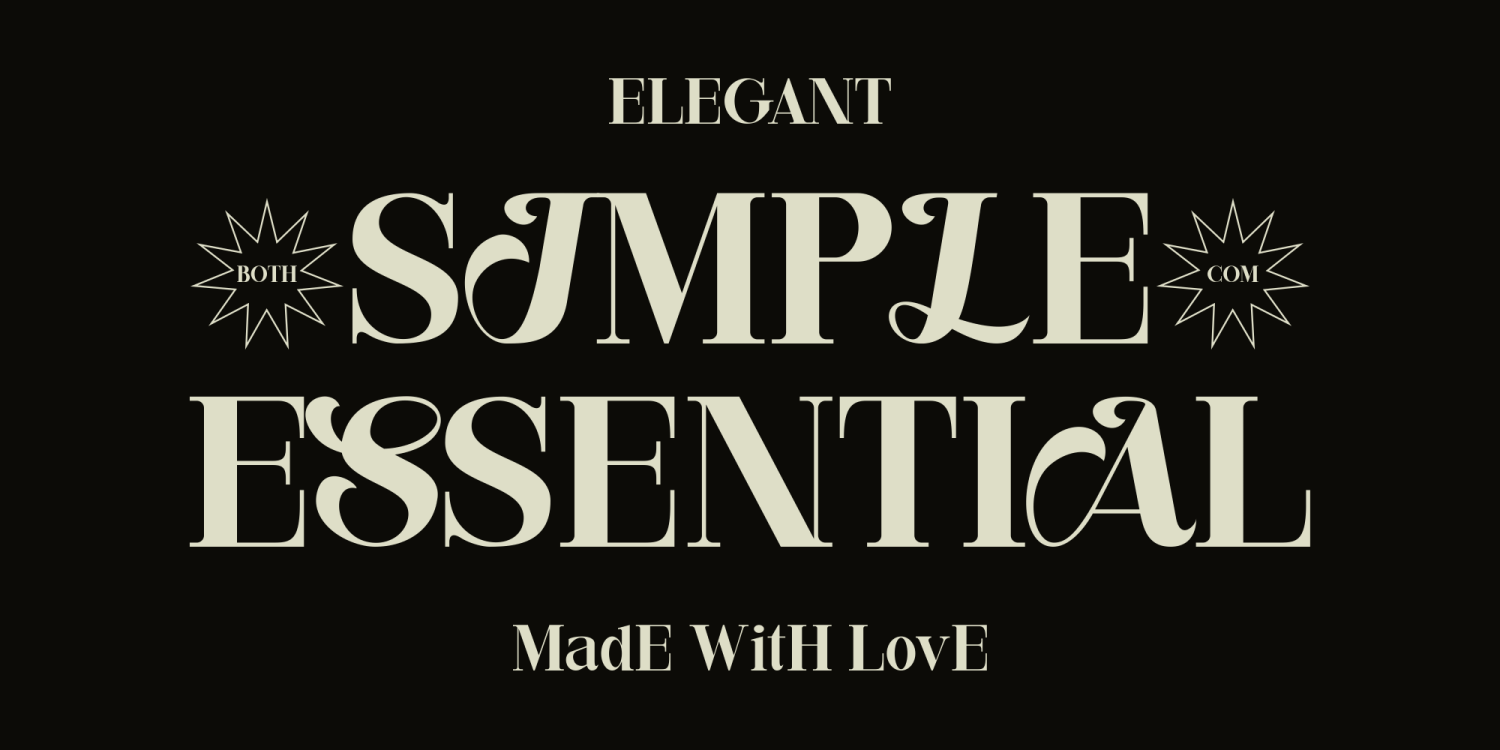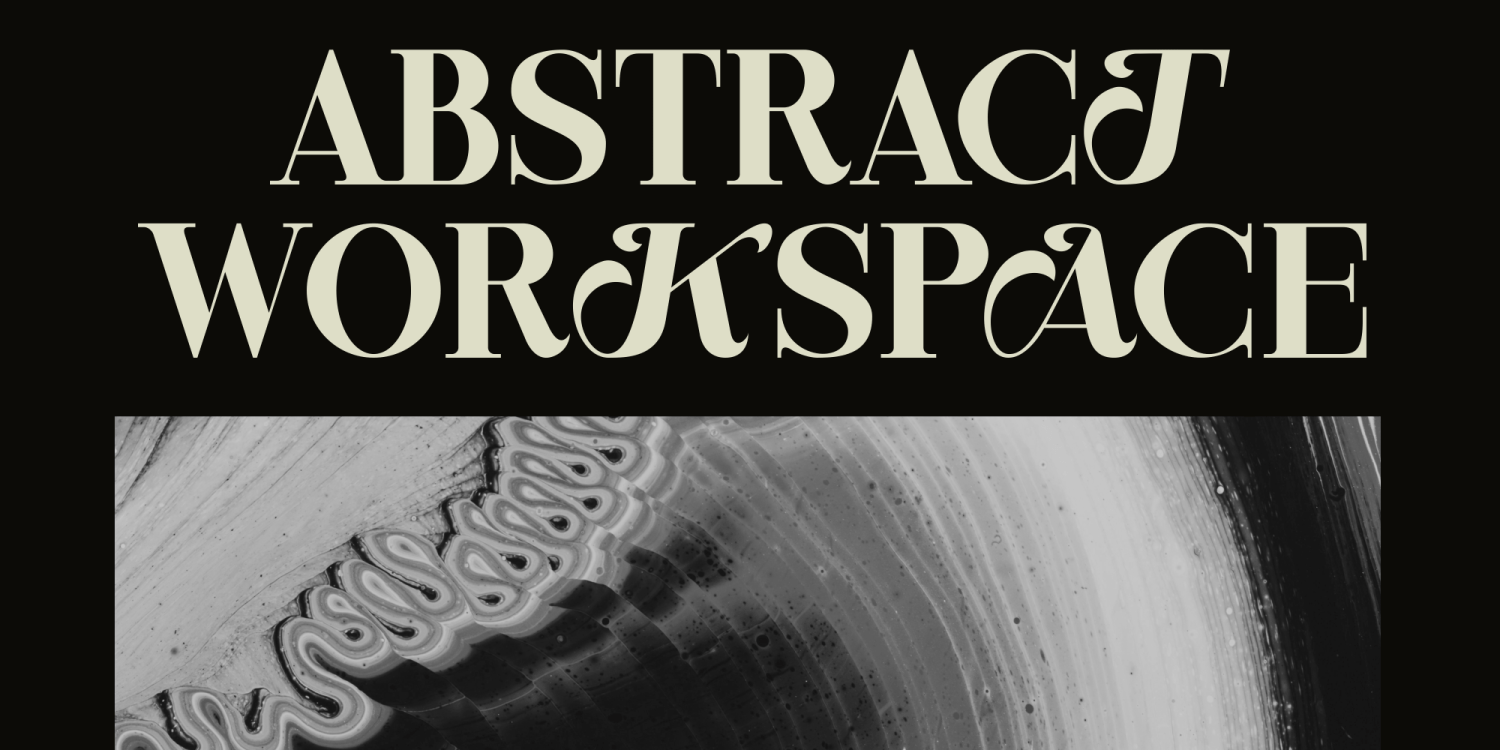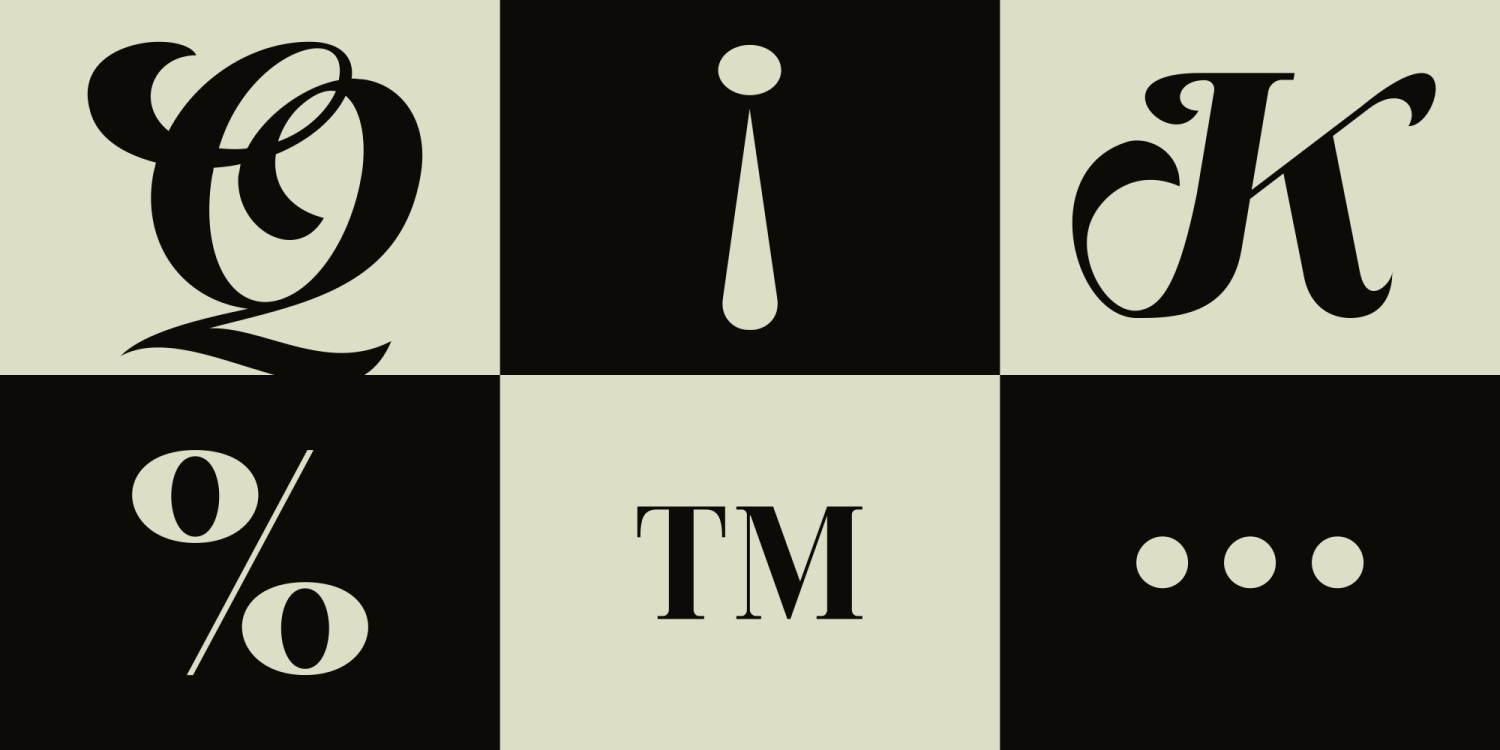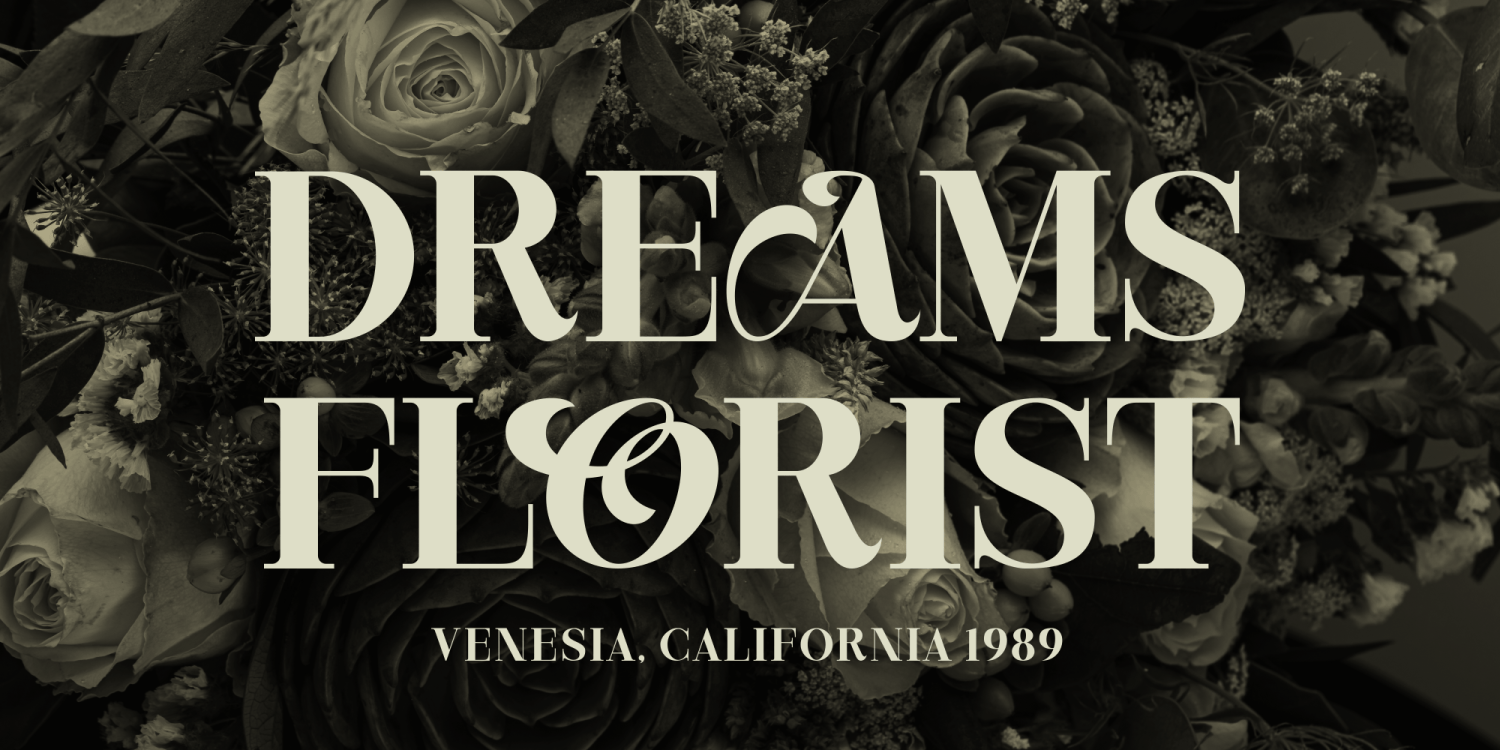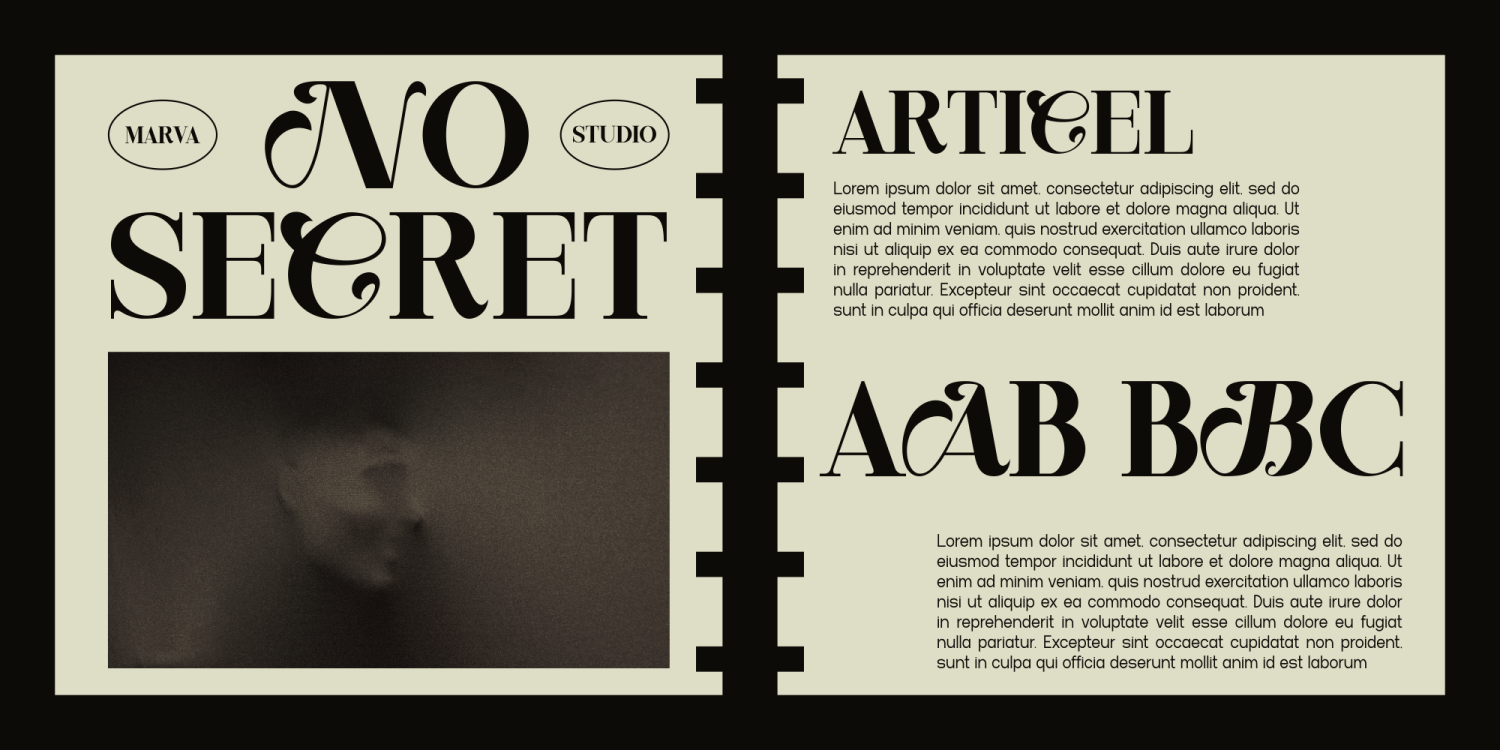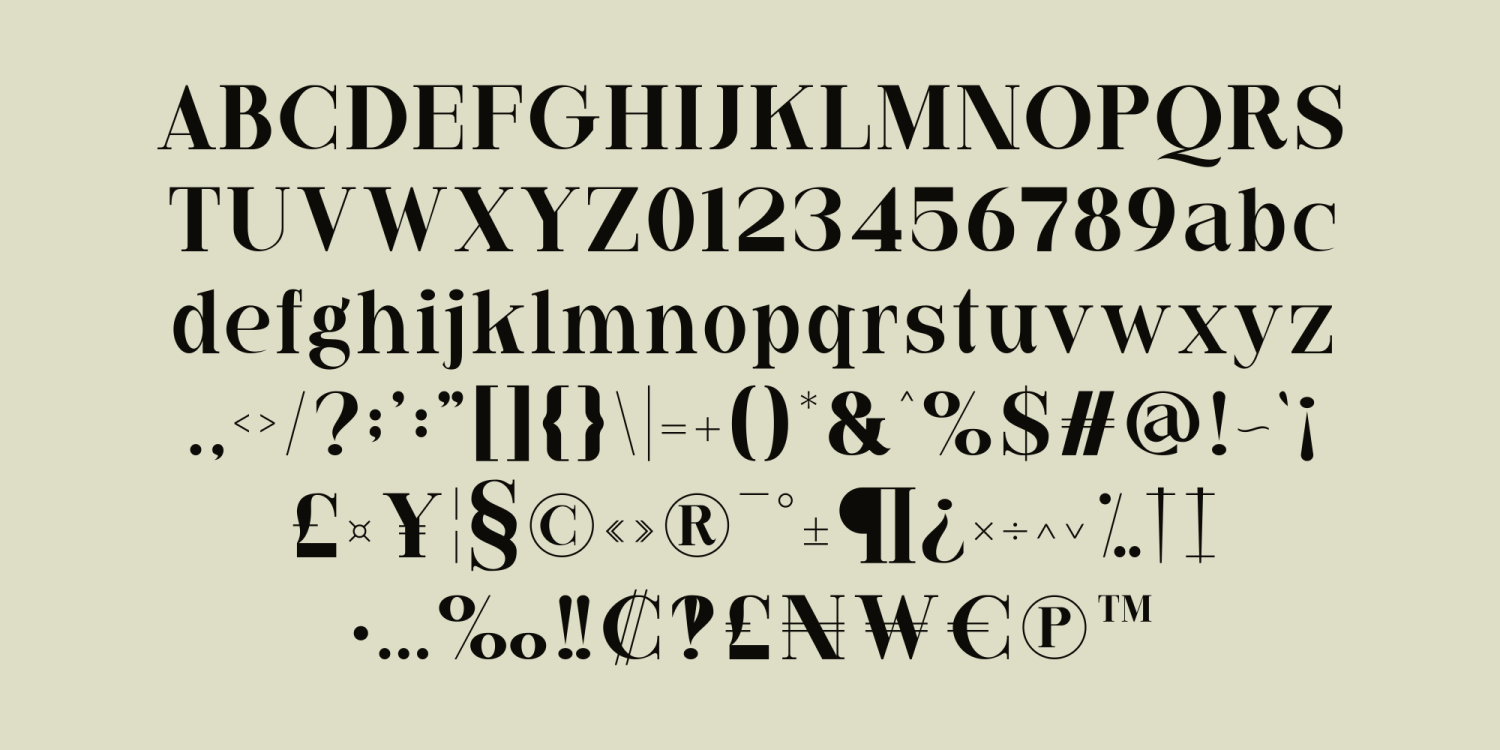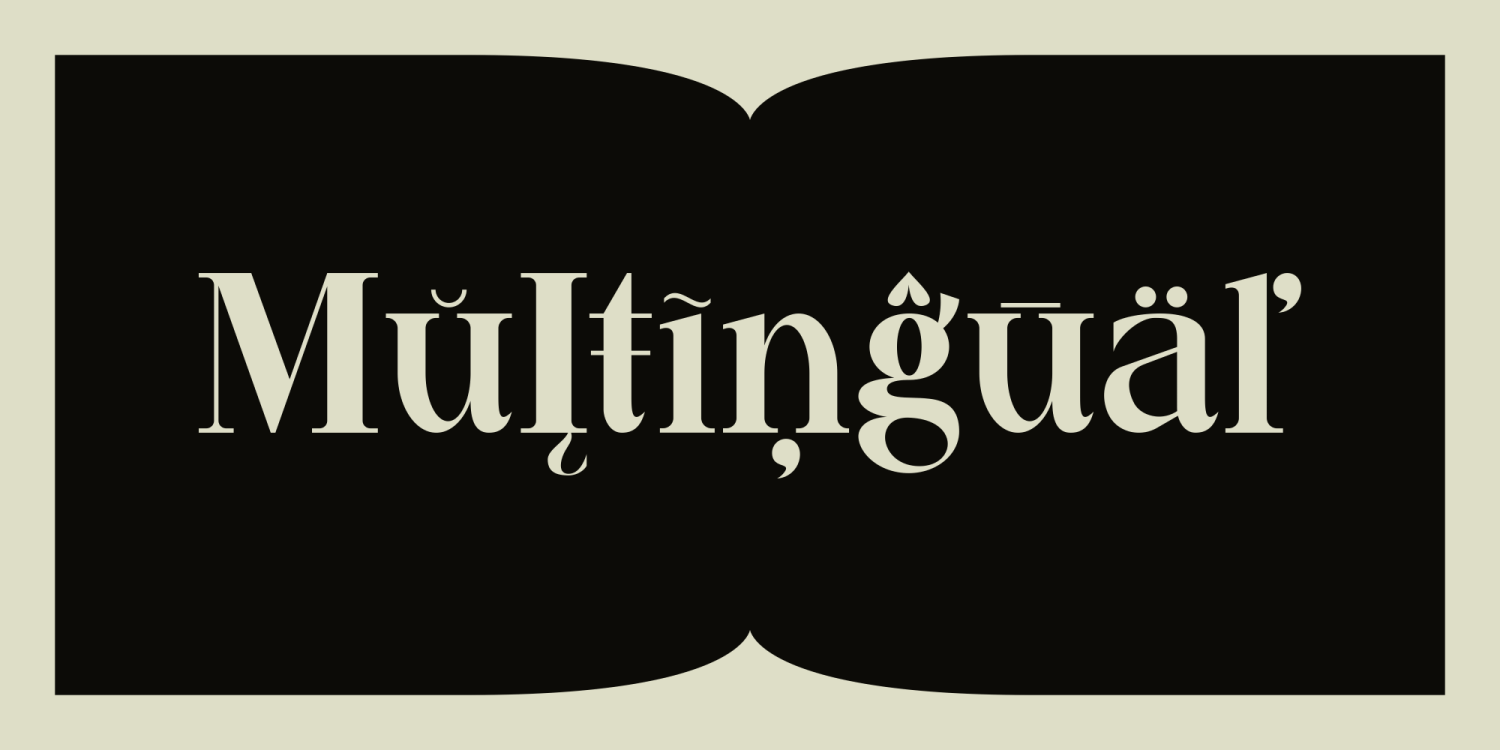
Bailse
Font Family by Marvadesign
Buy NowBailse Serif tend to have fine serif details and well-proportioned proportions. Subtle serif details provide a classic touch without overly framing it. The balanced and proportional proportions of the characters create a neat and orderly impression. Moderate letter height ensures good readability without sacrificing aesthetics. The character can have a slight curve to add softness to the overall look. This font is suitable for use in titles, main text, or other large text in designs that prioritize a formal and classic impression.